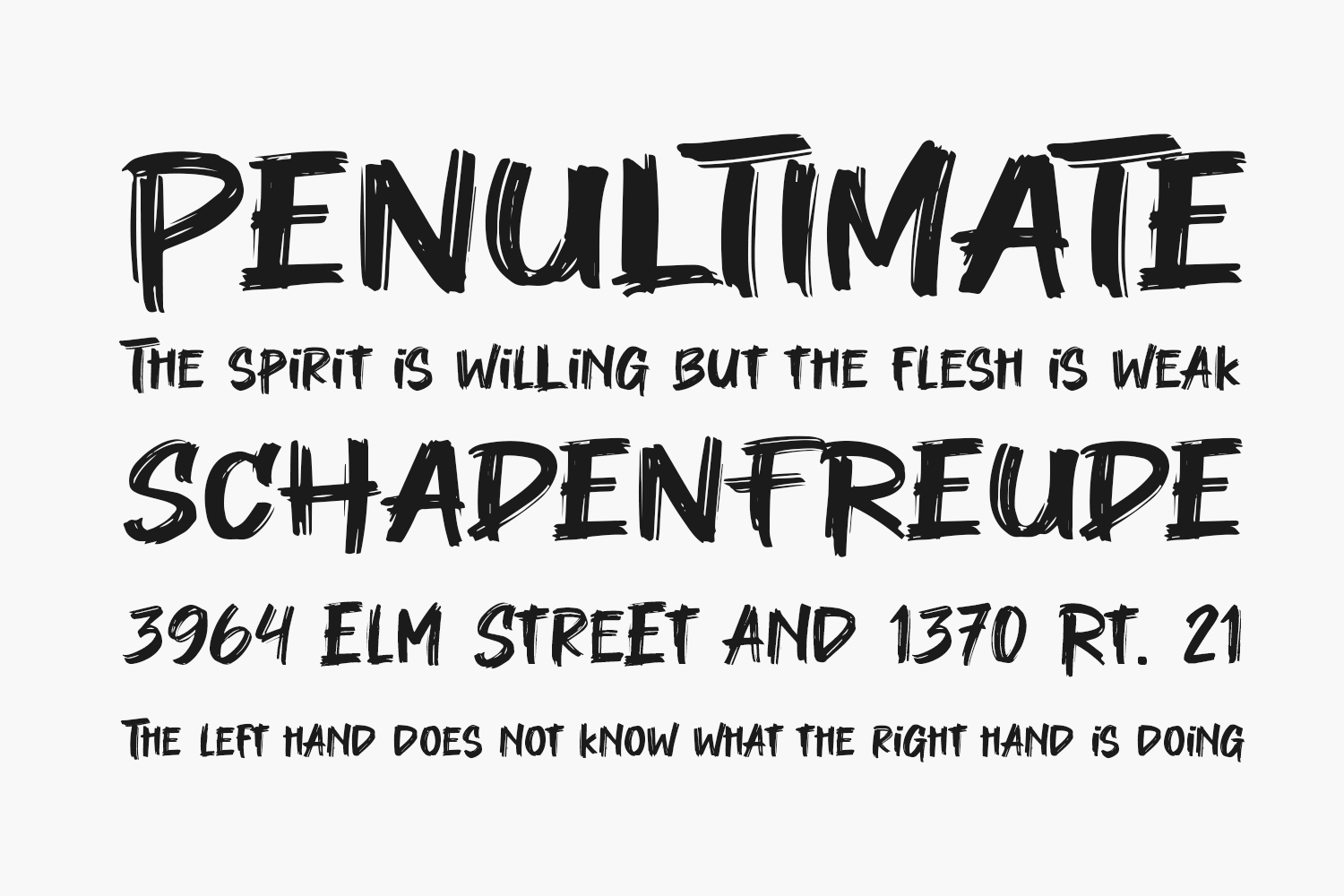
Most Heroes – Free Bold Display Font with Comic‑Style Flair
Most Heroes is a bold and dynamic display typeface designed by Khurasan. With its thick strokes, sharp angles, and high-impact letterforms, it channels the energy of comic books and superhero branding. Ideal for headlines, posters, logos, game titles, banners, and any design needing an epic touch. This OTF/TTF font is free for personal use, and available for commercial licensing via the designer’s store. Bring hero‑level attitude to your visuals with Most Heroes!
Why Choose Most Heroes?
- Superhero Aesthetic: Bold, angular letterforms inspired by comic book typography.
- High Visual Impact: Weighty strokes ensure standout headlines and titles.
- Ready for Branding: Ideal for games, event posters, YouTube thumbnails, and themed merchandise.
Where to Use Most Heroes?
- Posters & Flyers: Eye-catching choice for comic-con, game launches, or action-themed events.
- Game & Movie Titles: Dramatic headings for game covers, trailers, and posters.
- Logos & Merchandise: Bold wordmarks for superhero fan brands, apparel, or merch.
- Social Media Graphics: Hero-style overlays for YouTube thumbnails, Twitch banners, or Instagram Stories.
- Editorial Headers: Dynamic section titles in gaming mags, blogs, or digital storytelling.
Design Tips with Most Heroes
Use at large display sizes (≥36 pt) to fully showcase its bold energy. Pair with simple sans-serifs like Simvoni or Usuality for contrast. Try high‑contrast color palettes—red, blue, yellow—or bold black-and-white for dramatic effect. Add subtle drop shadows or halftone textures to enhance the comic-book feel.
- Glyphs: Uppercase A–Z, numerals, punctuation, basic Latin (~75 glyphs).